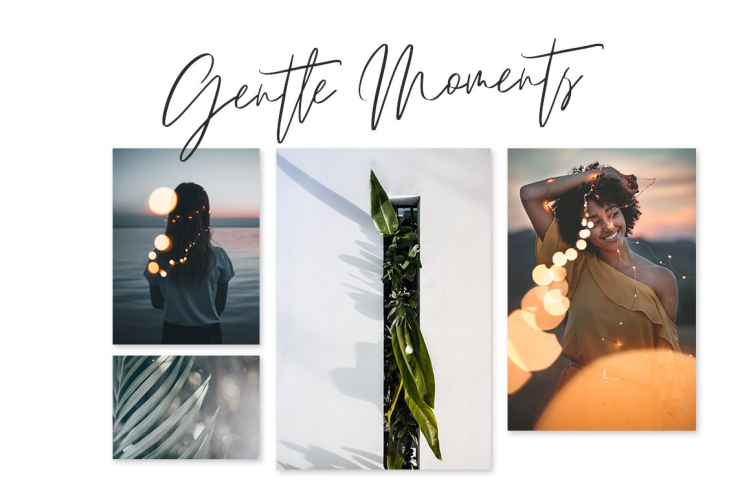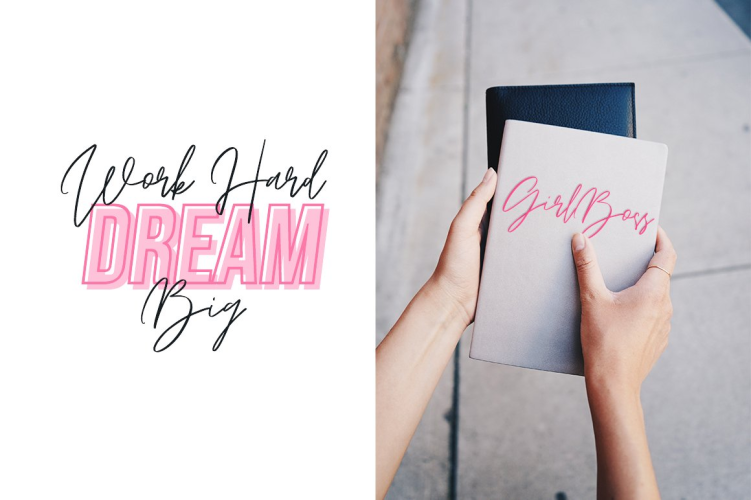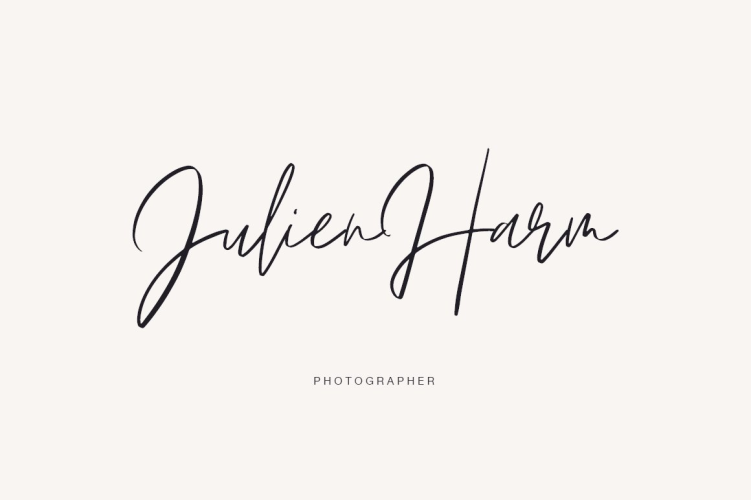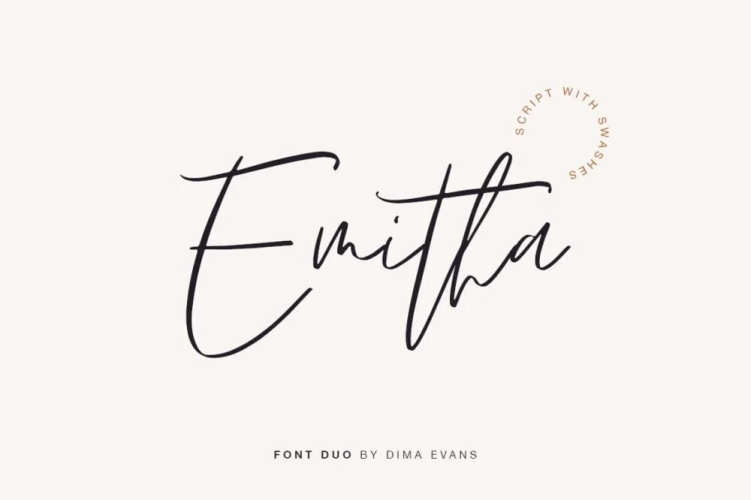
Emitha Script Font
Emitha Script Font includes a full set of lovely uppercase and lowercase letters, multilingual symbols, numerals, punctuation, and ligatures. Also, it includes a large set of Swashes and Strokes. This is so perfect for invitations, monograms, etc
Where Emitha Script Font works best
A short phrase in Emitha Script Font carries warmth that a typeset sans cannot fake; keep the rest of the card plain.
Chalkboard-style headings in Emitha Script Font make a menu feel hand-made. Keep the dish descriptions in a simple face so prices stay readable.
One line of Emitha Script Font over a photo is enough; the script carries the tone and the caption does the work.
What kind of work does Emitha Script Font suit?
It sits in the Script And Handwritten group and reads as handwritten, professional, script, script and handwritten. That makes it a candidate wherever those qualities help: headings, packaging, social graphics and brand work. Set it at the size you plan to use before deciding.